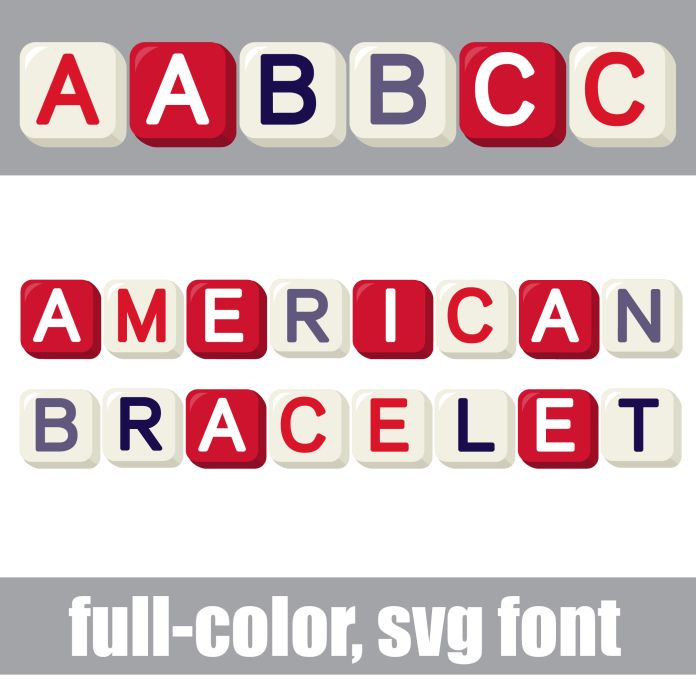
This full-color font looks like a typical friendship bracelet but done in patriotic colors. There is an alt case w/ additional colors you can access through your system or Silhouette's glyph map. This font works best for titles, displays, posters and more. Please note color fonts will show as black in non compatible programs. This font type is compatible with Silhouette Studio.